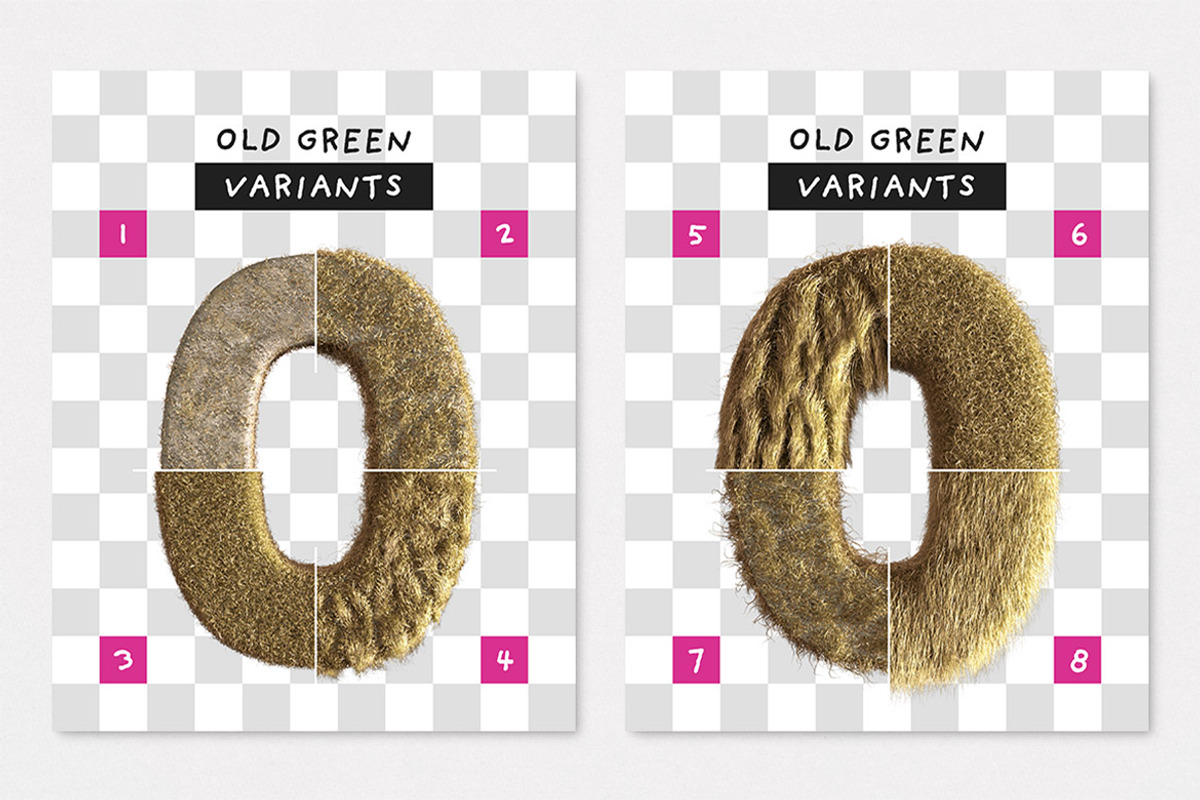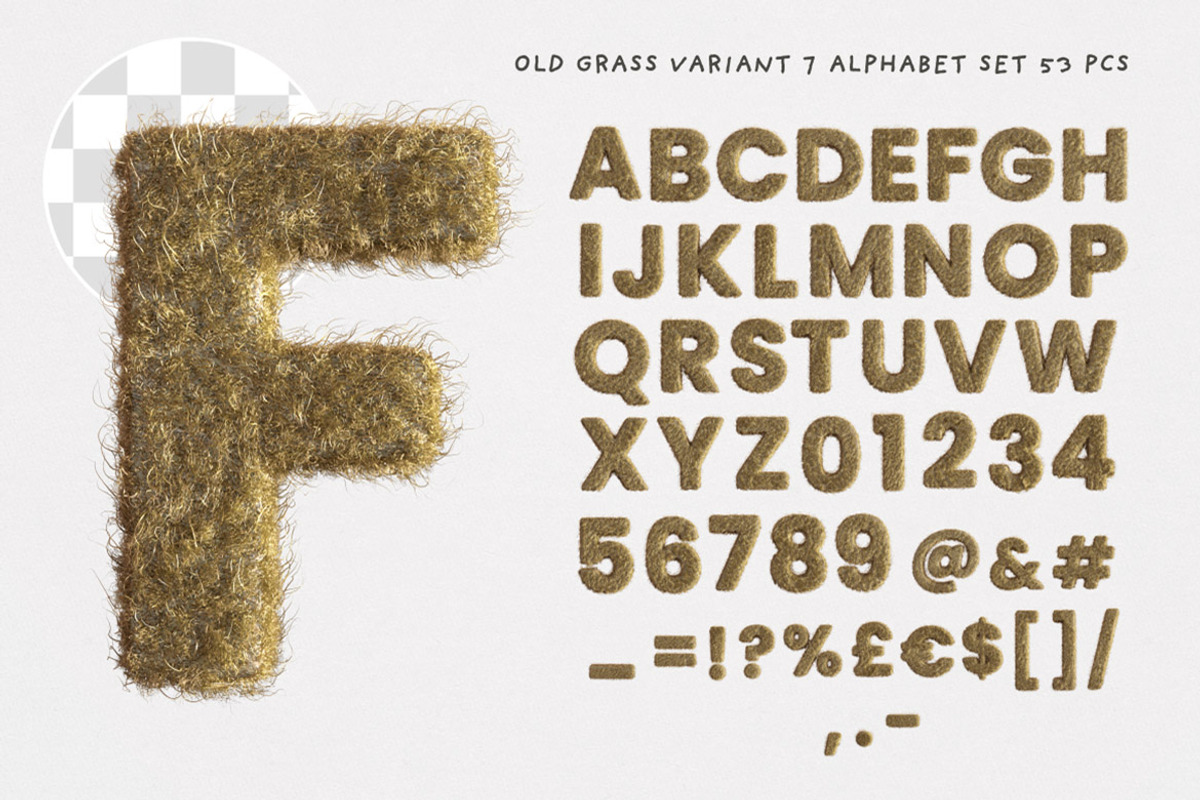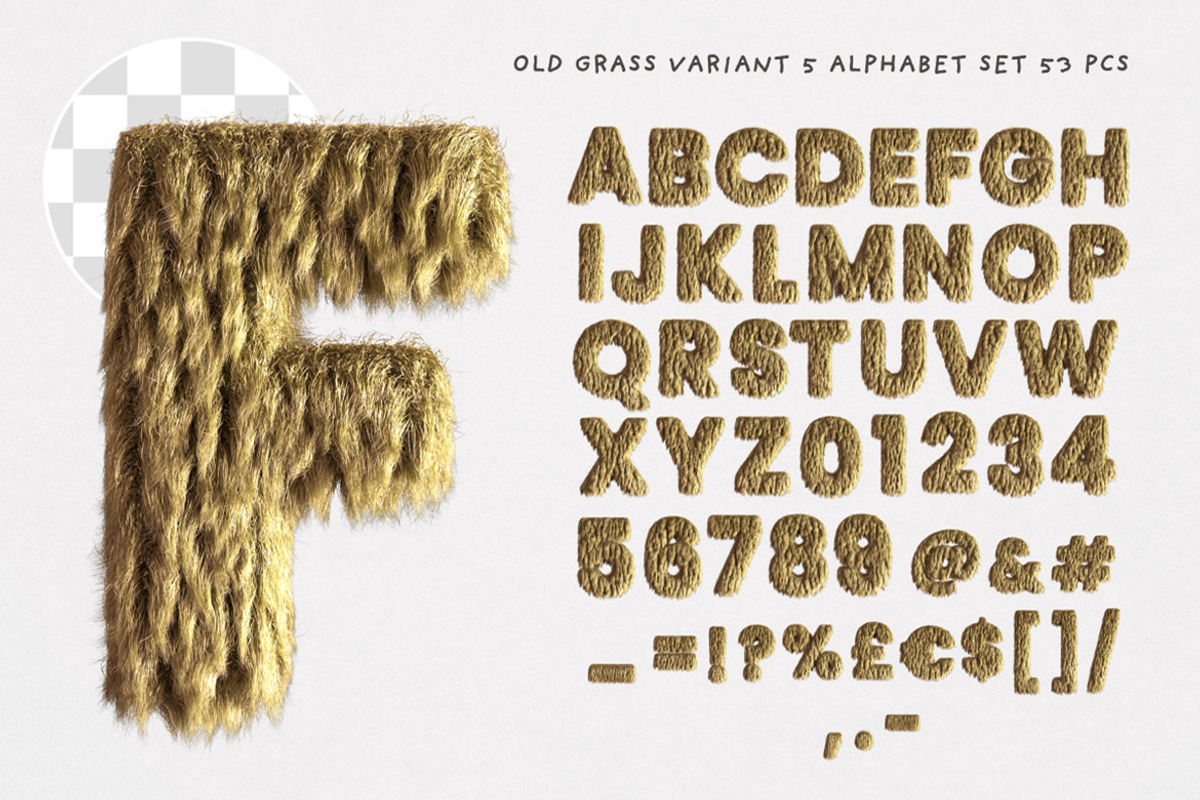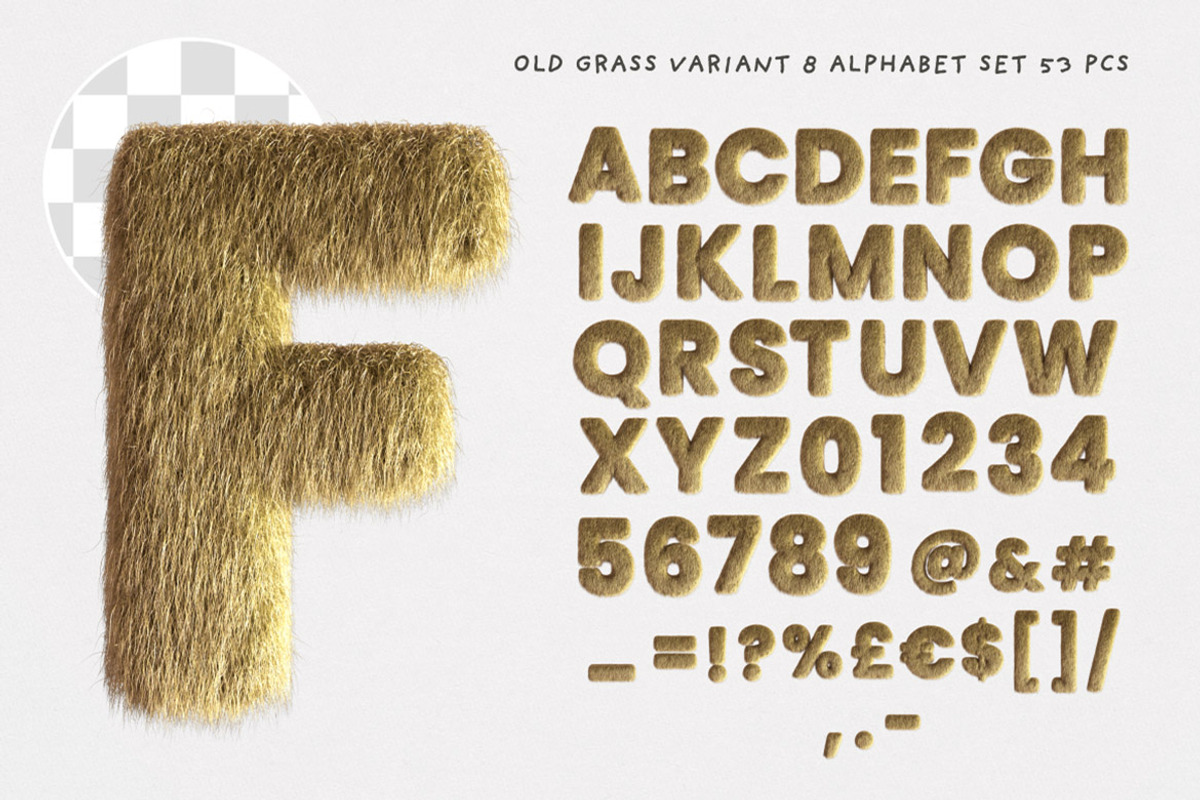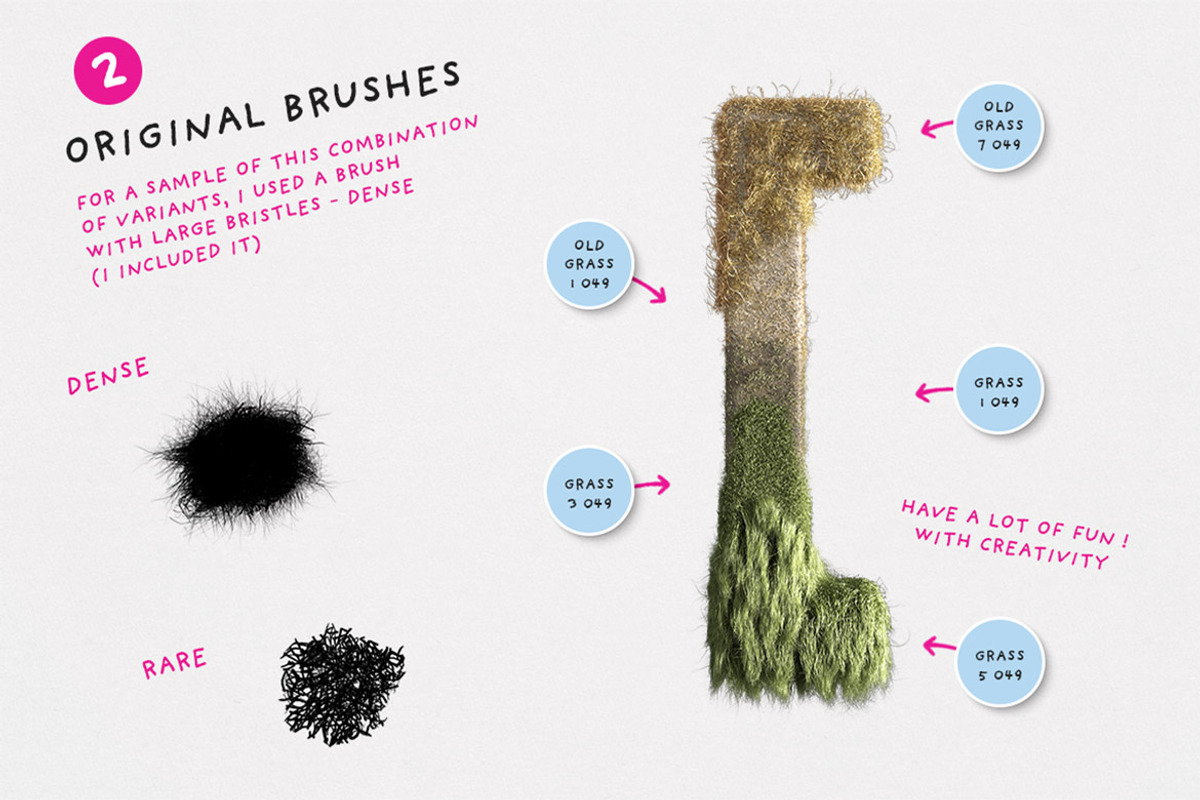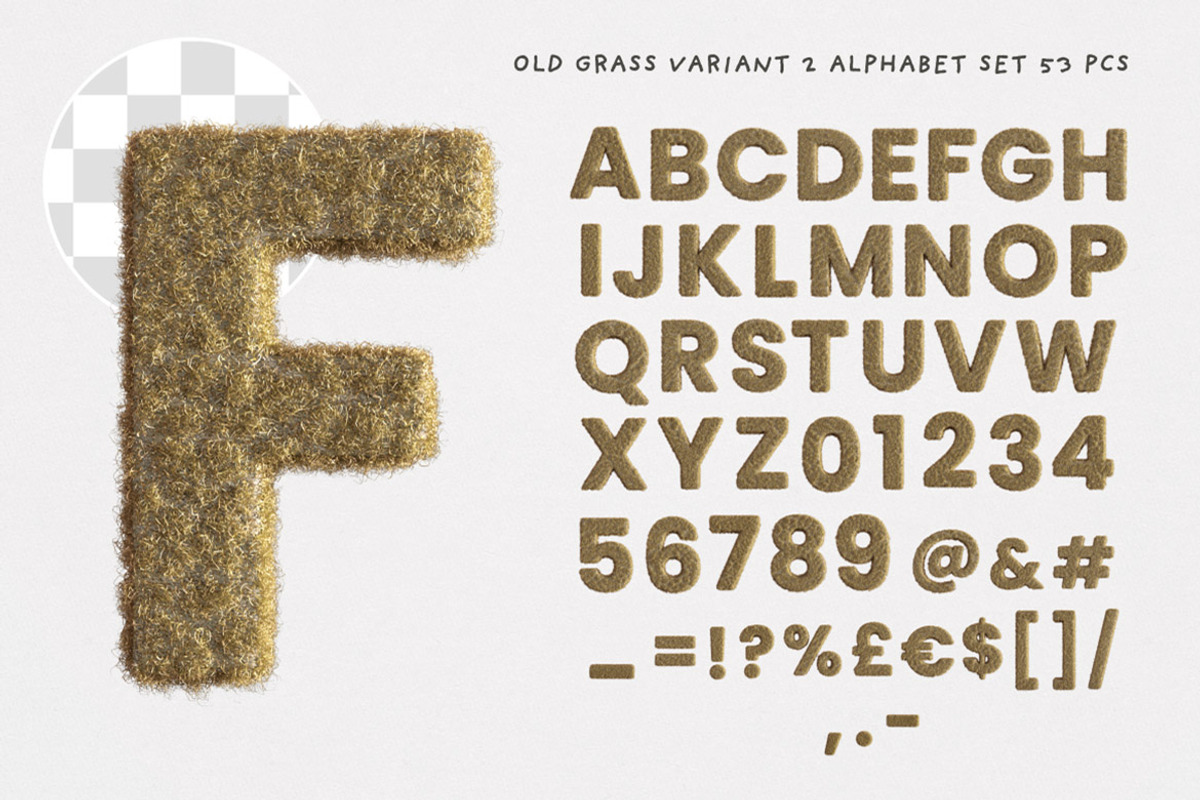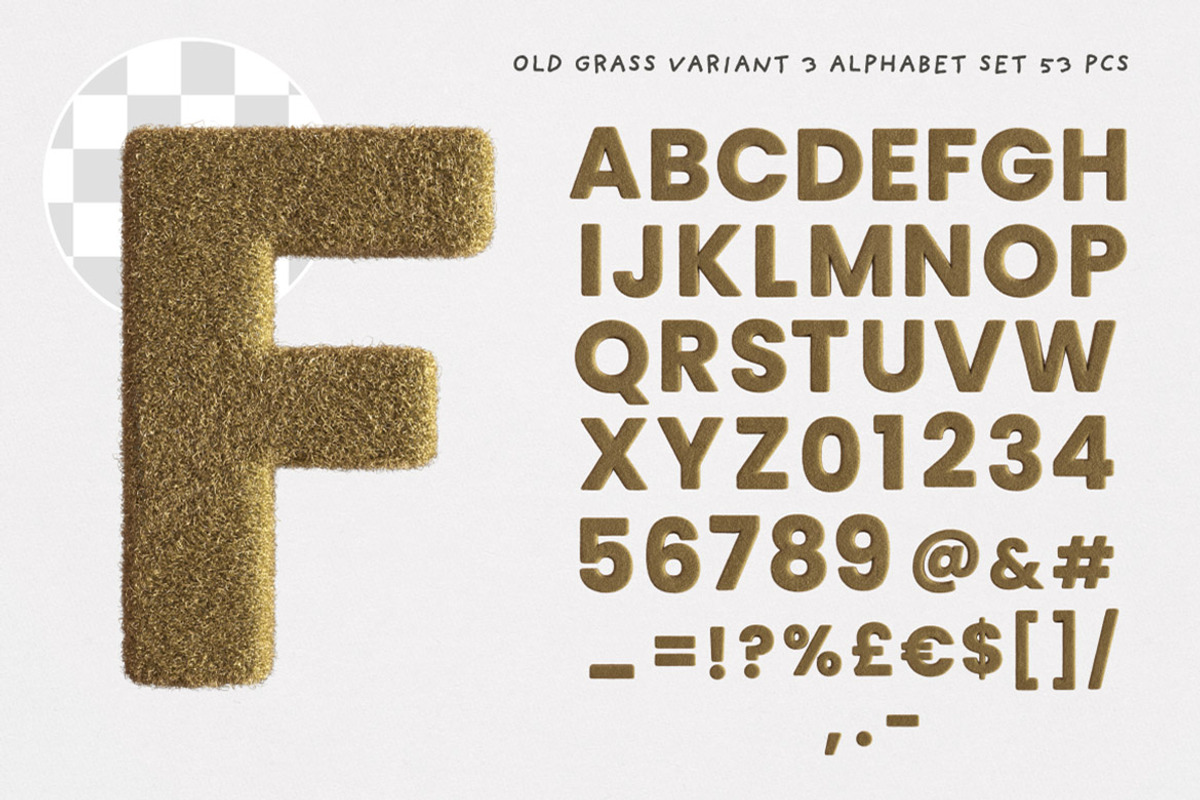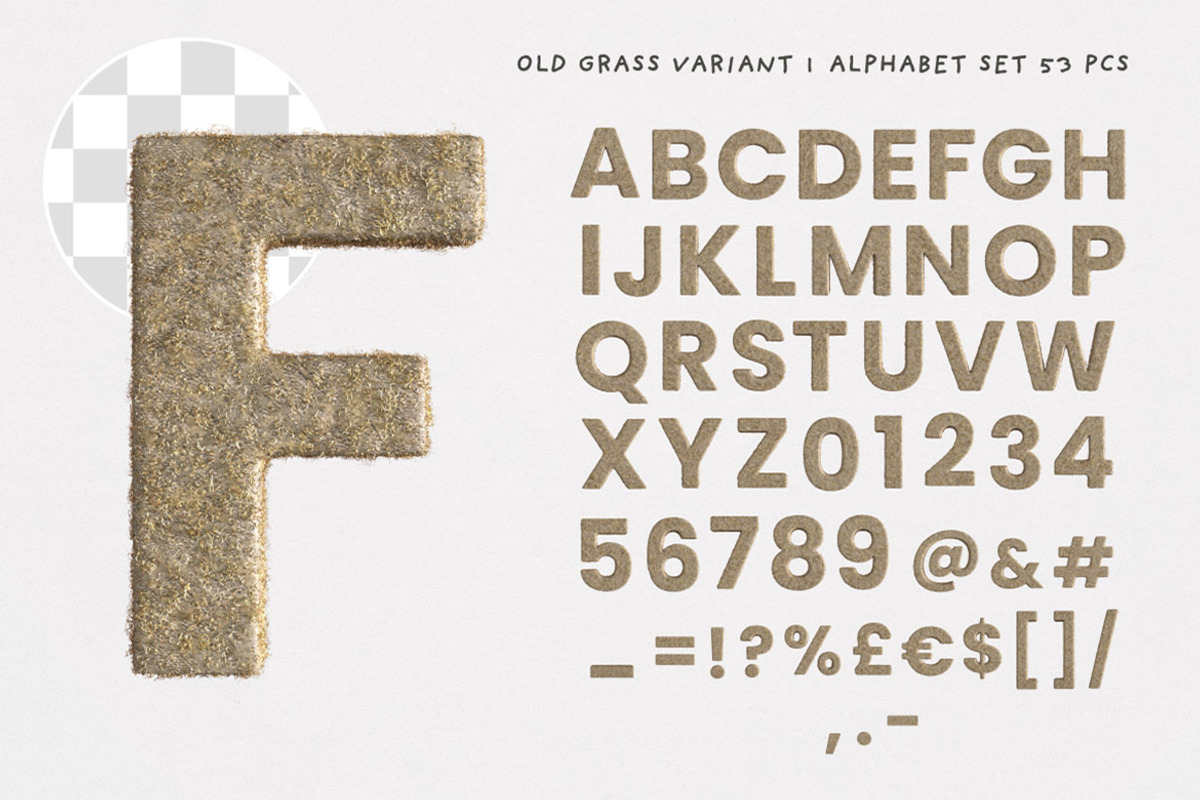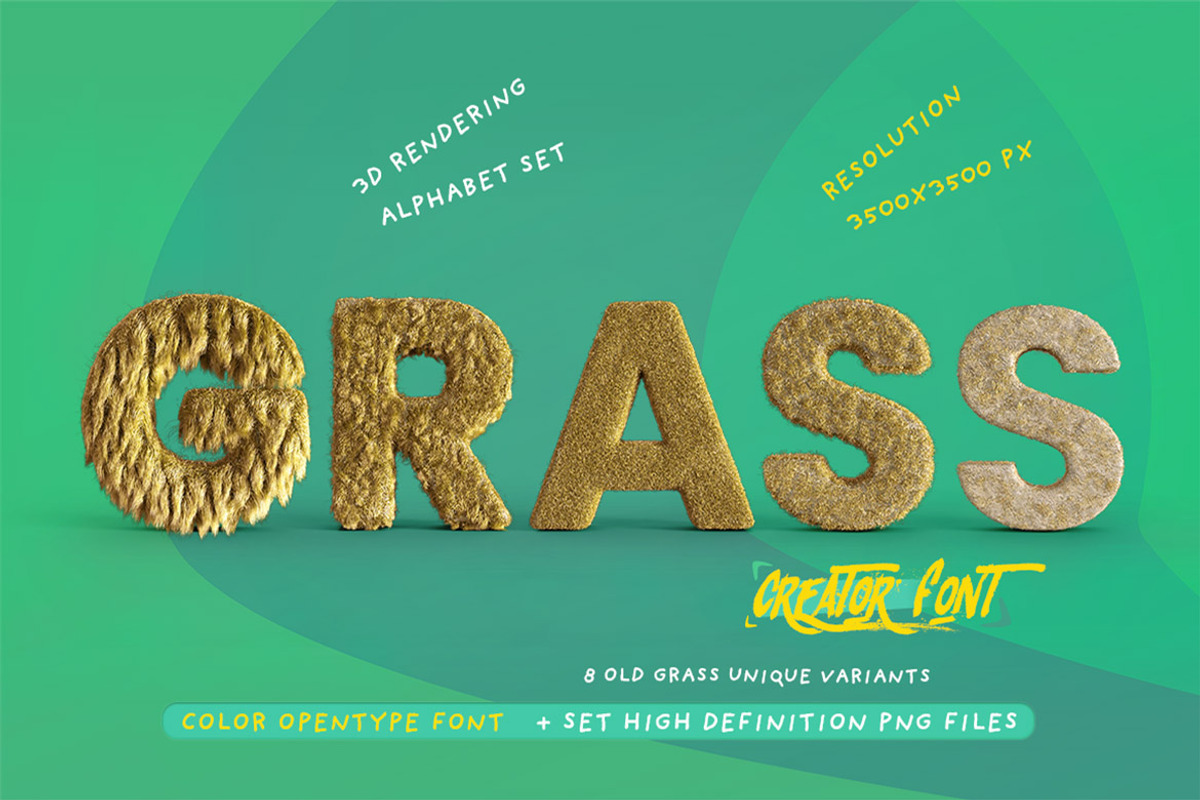
Old Dry Grass or Fur Typo Creator
Super creative, cute, playful & funny graphic PNG alphabets & 8 color SVG fonts (old dry grass or fur). If you need to create original & happy artwork for your kids or realistic grass header in minutes you need to check this bundle! All these PNG graphics are hi-res so really great for any print or web projects. Color SVG fonts are better for smaller resolution projects. Great for original print design, banner, social media post or any graphic promotion ;) Please check all preview images.
- transparent PNG images with mosnter faces
- create your own alphabet - you can place any from included faces on any PNG lettering set
- re-color your own alphabet - it's very easy to change color on any clean lettering set